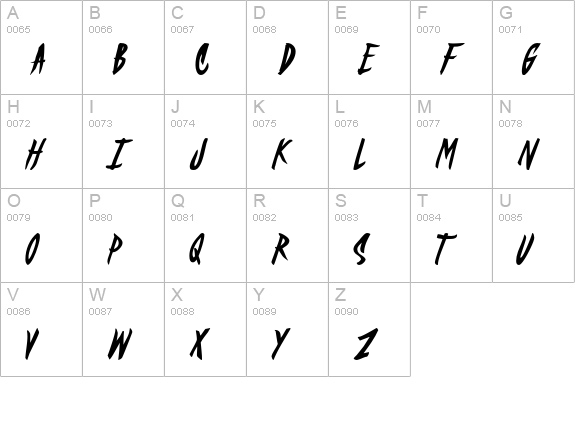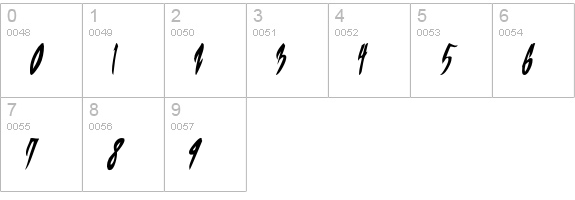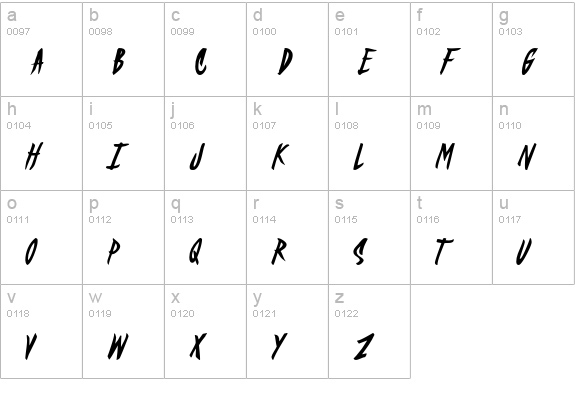
OLDSKULJOE Font Details
Below you can preview OLDSKULJOE in uppercase [A-Z], lowercase [a-z] and numbers [0-9]. You can also read the author's notes and license information before downloading.
Introducing OLDSKULJOE, a versatile and dynamic font that perfectly captures the essence of retro and vintage style. With its bold and distinctive letterforms, OLDSKULJOE exudes a sense of nostalgia while maintaining a modern edge. This font is perfect for a wide range of design projects, from branding to posters to merchandise. What sets OLDSKULJOE apart is not only its unique design but also the fact that it is available for free! Yes, you read that right - this amazing font can be downloaded at no cost from FontsMarket.com. So whether you're a seasoned designer looking to add a new font to your collection or a newcomer exploring the world of typography, OLDSKULJOE is a must-have addition that won't break the bank. Embrace the retro vibes and timeless appeal of OLDSKULJOE and elevate your designs to the next level. Download this free font today and let your creativity run wild!